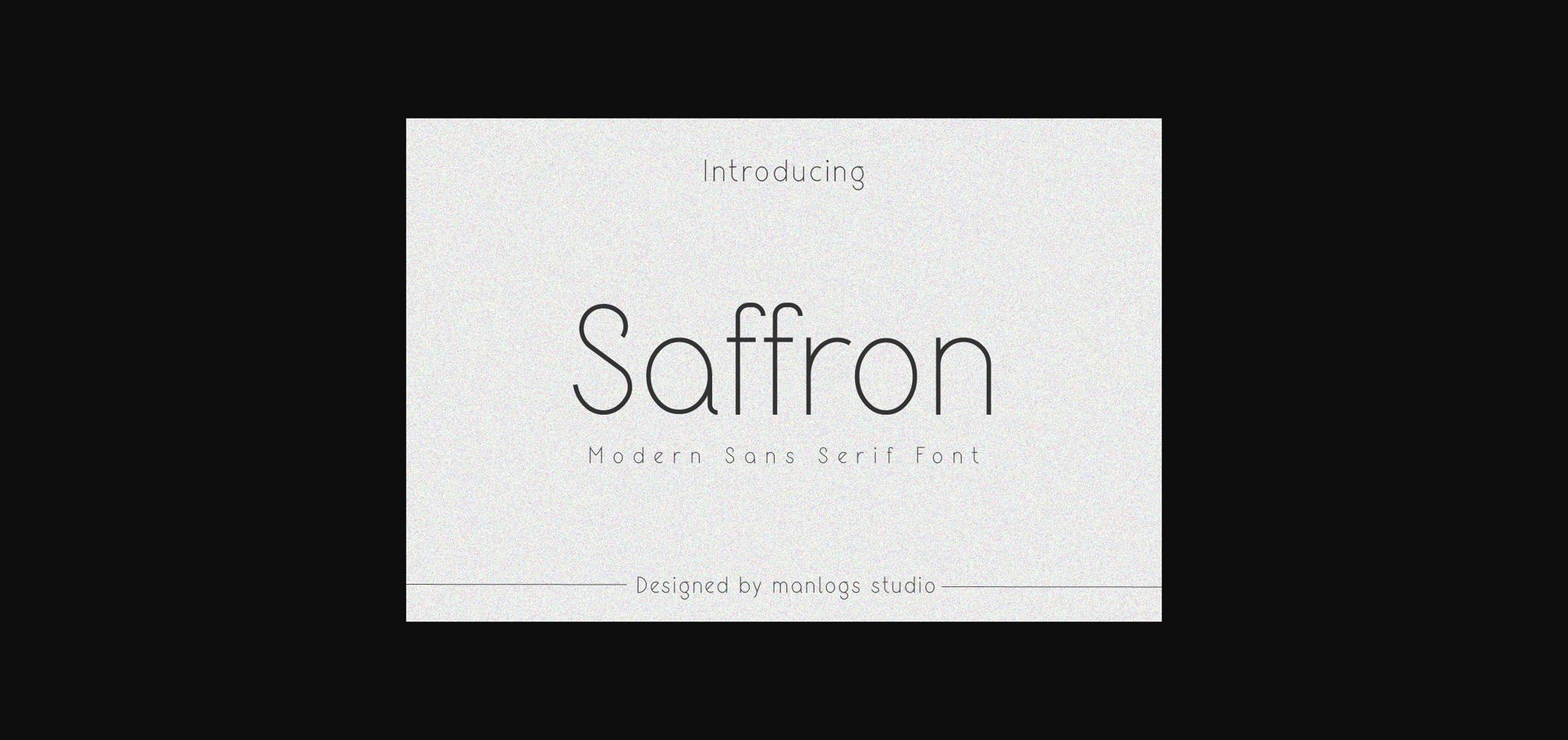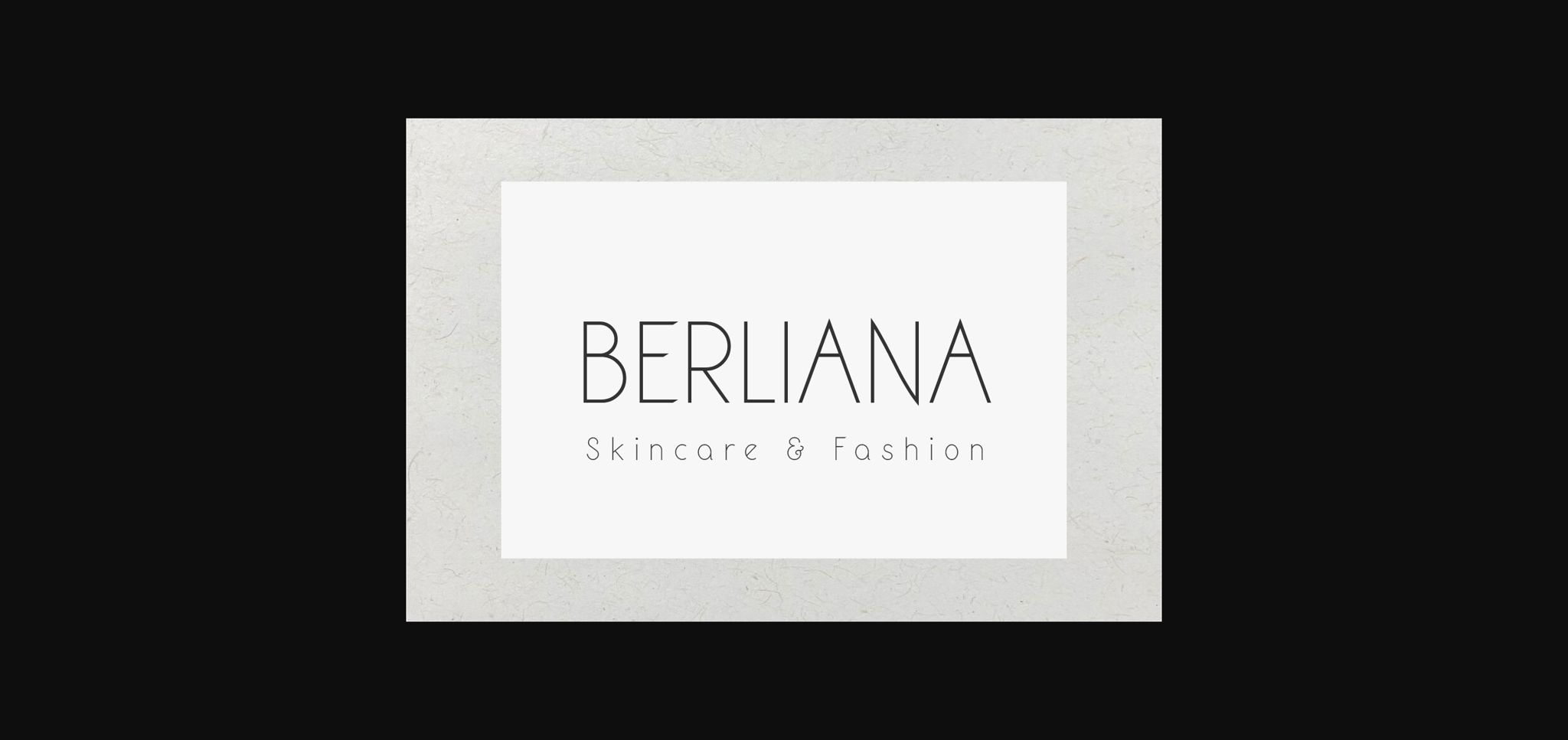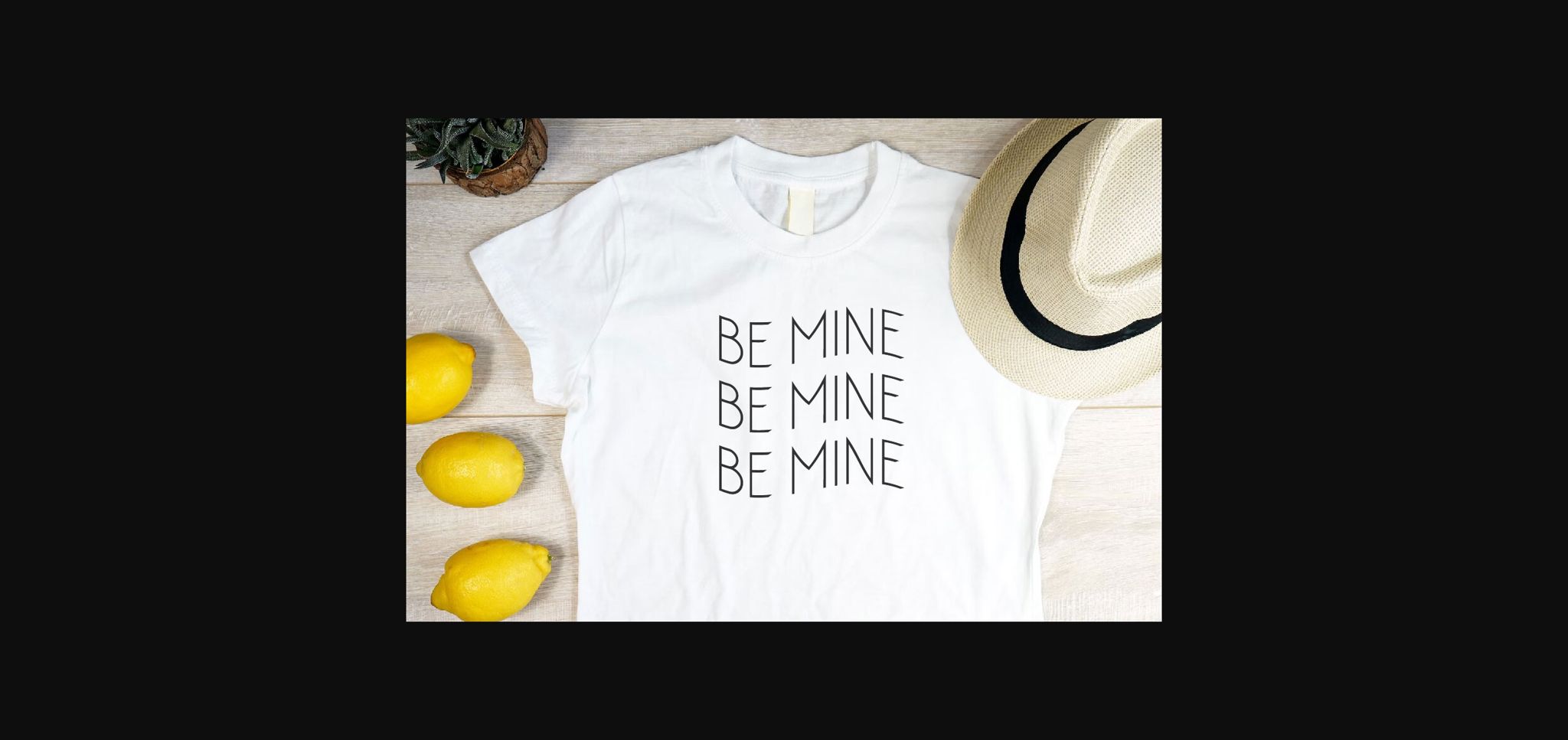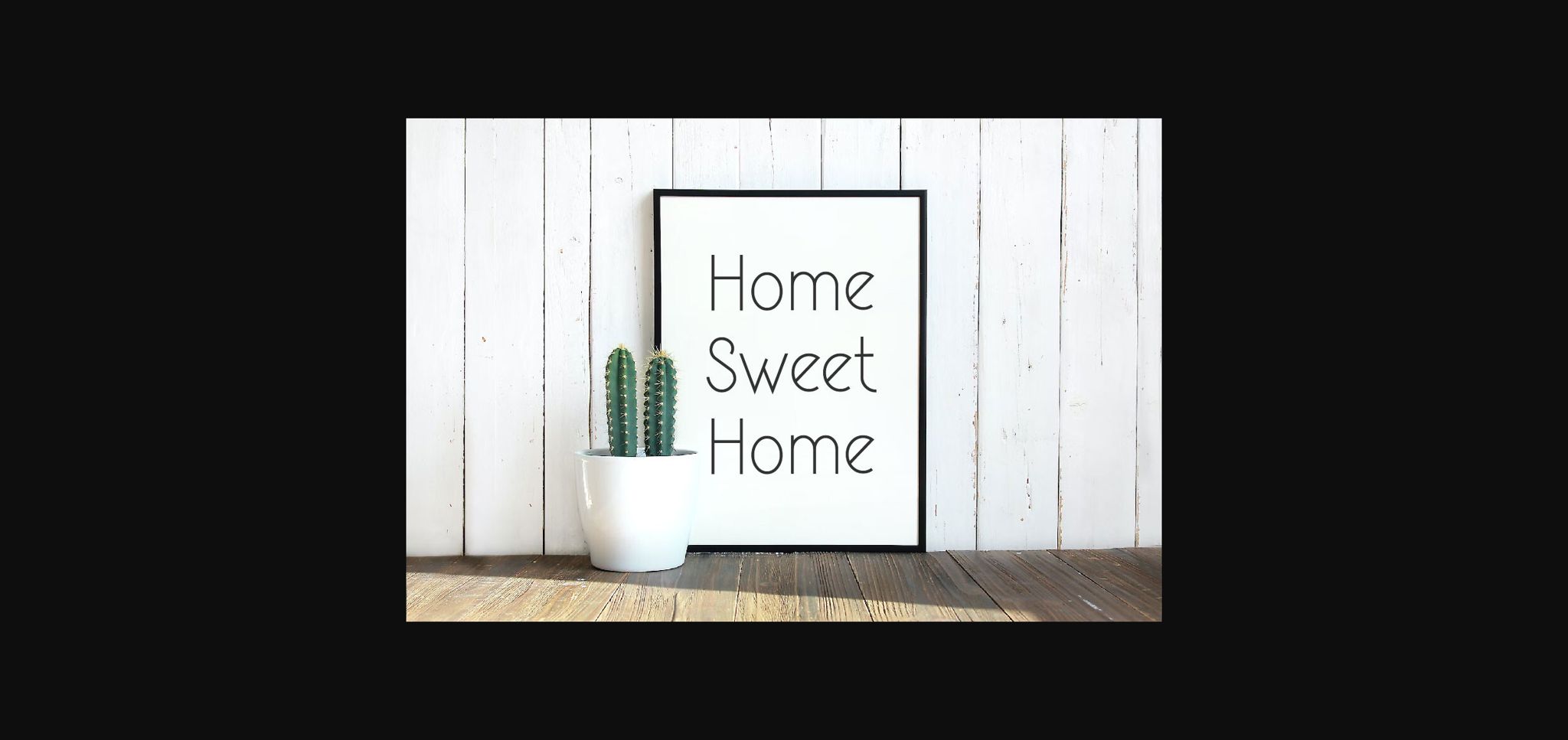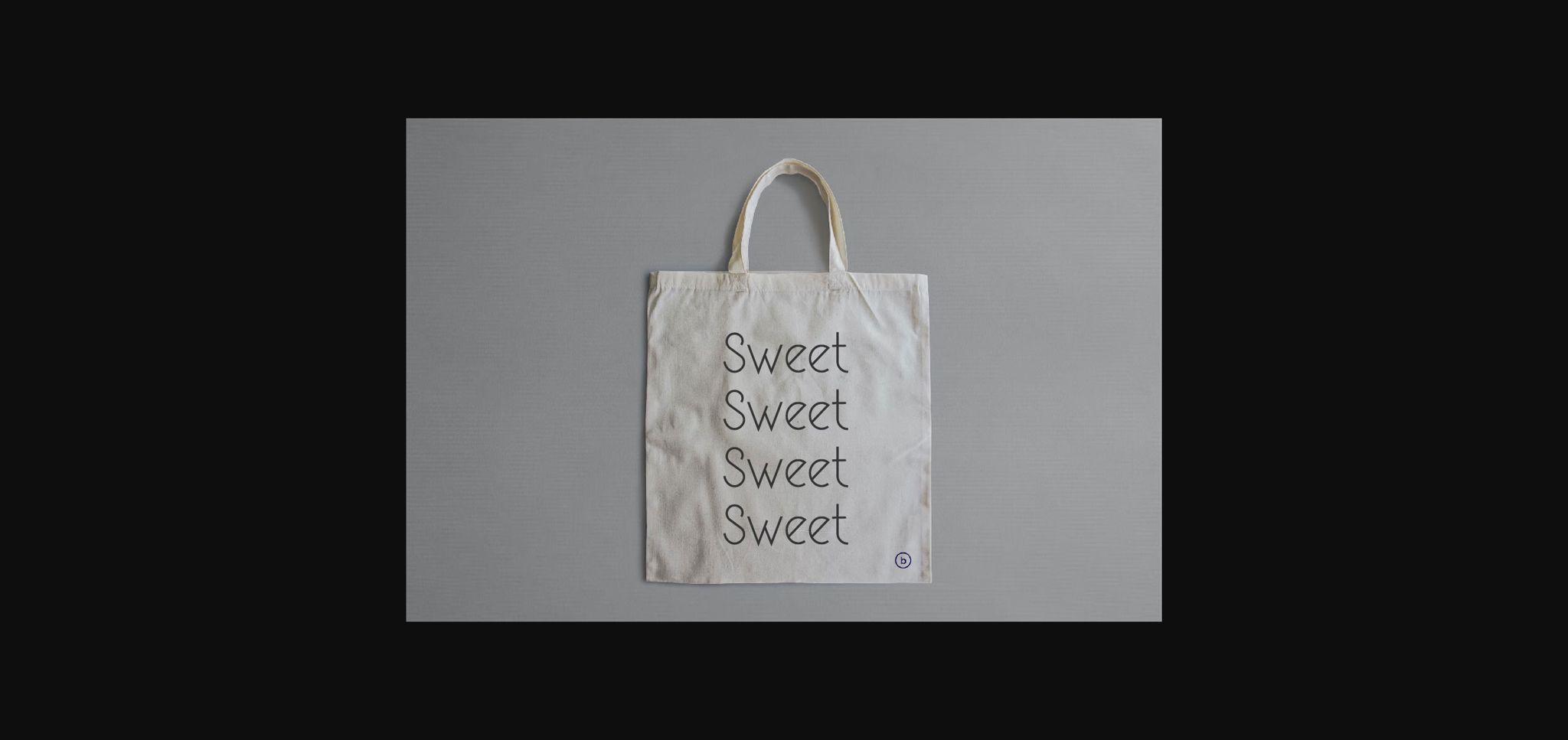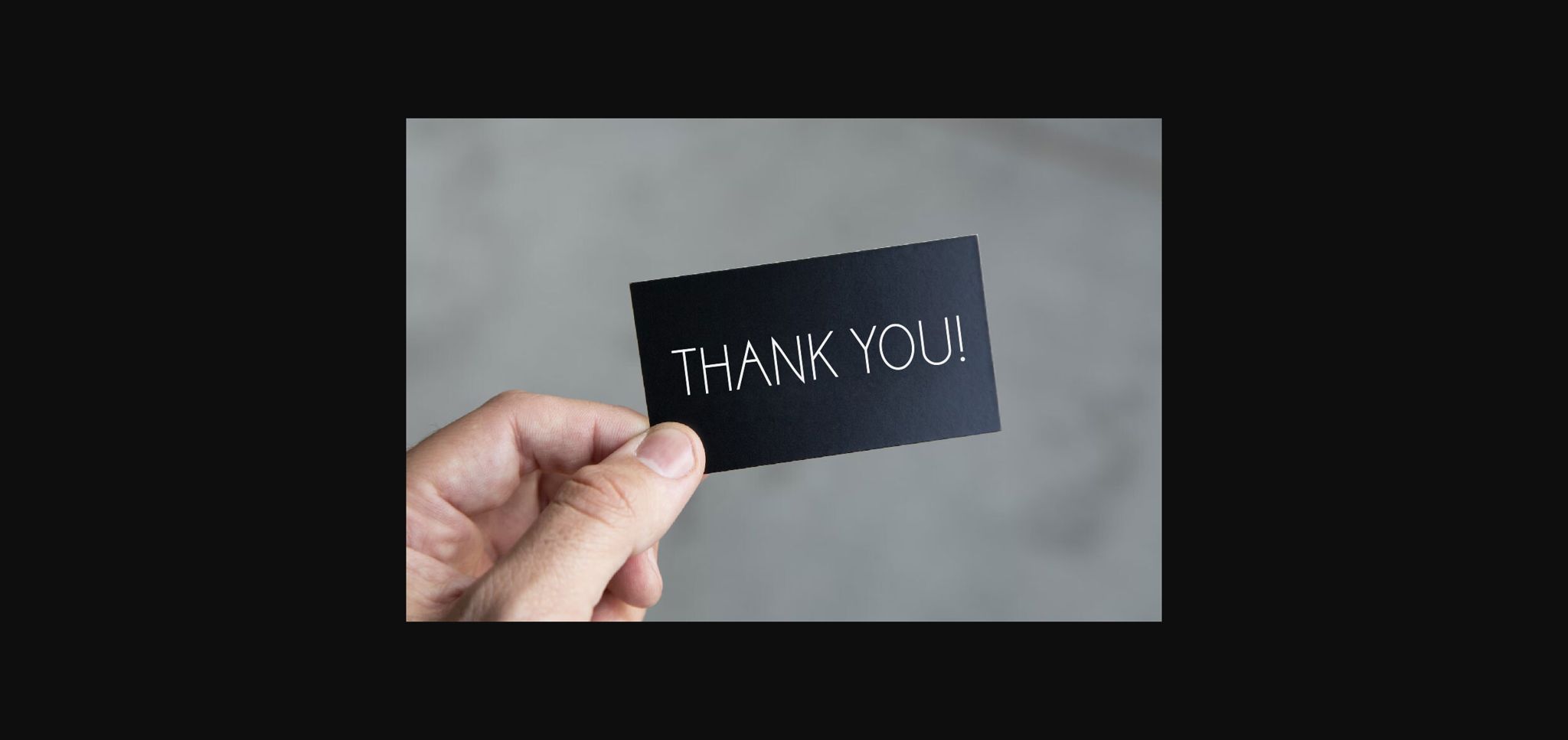
Saffron Font
About Saffron Font
Saffron is a simple sans-serif font designed for a clean retro look. With its vintage balanced proportions, this font is perfect for creating a minimalist aesthetic in product fashion, mug, wedding, invitation, package design, quotes, t-shirt, gift labels, logos, web design branding and more!